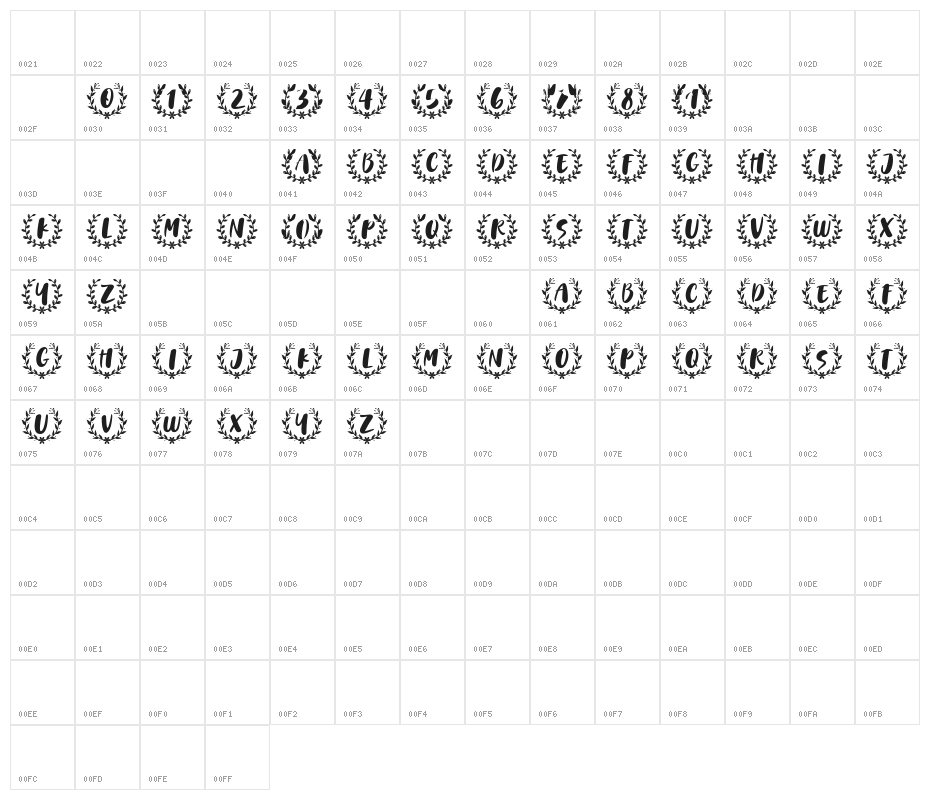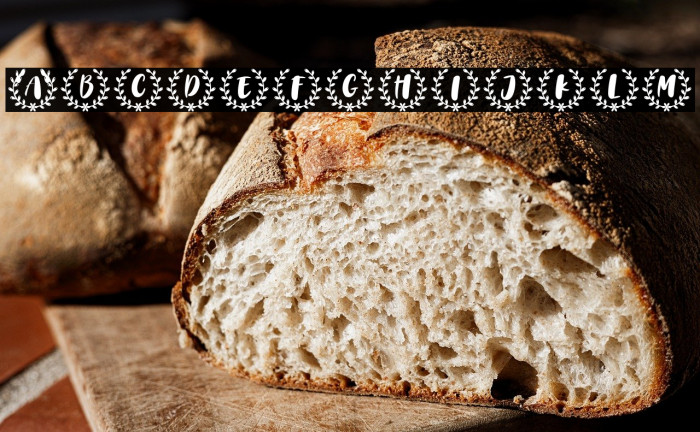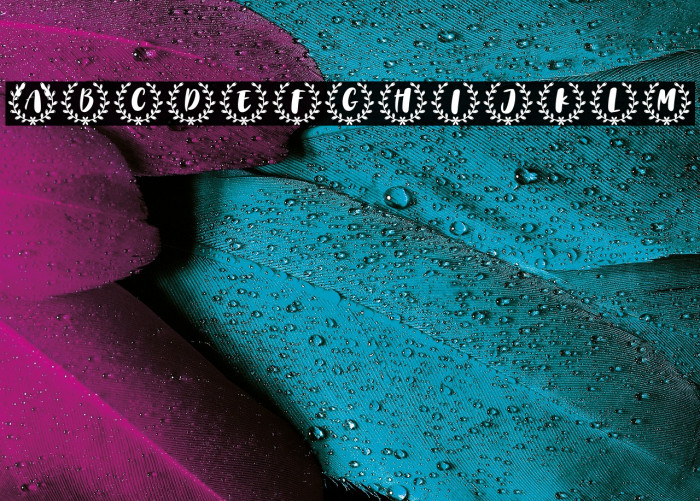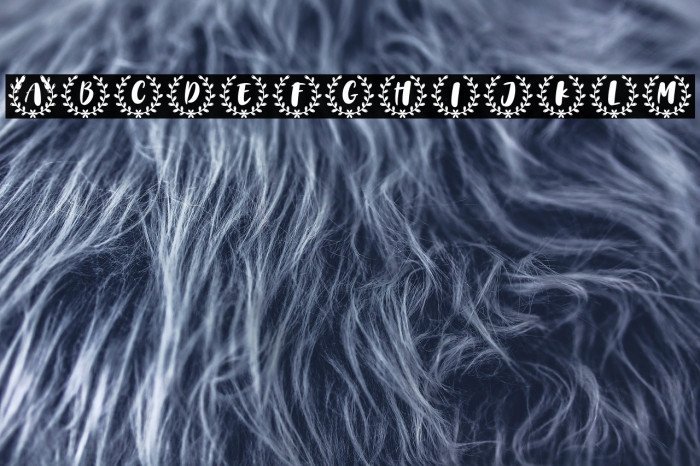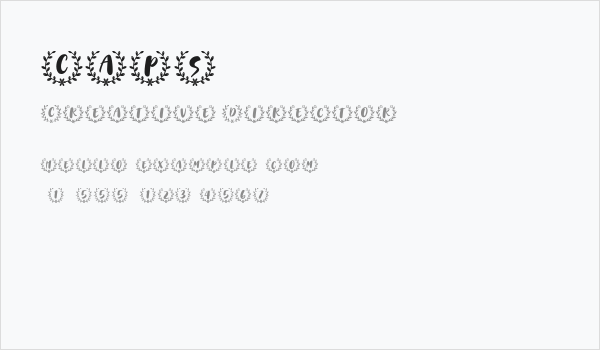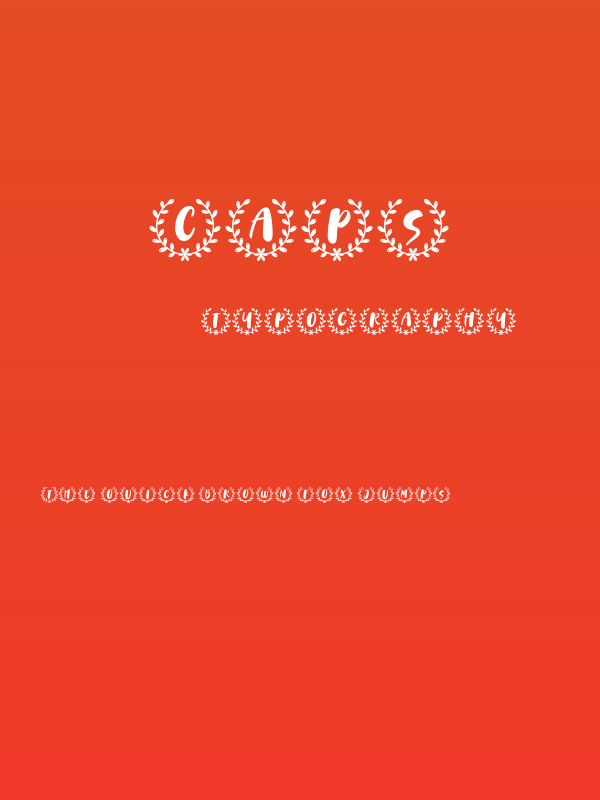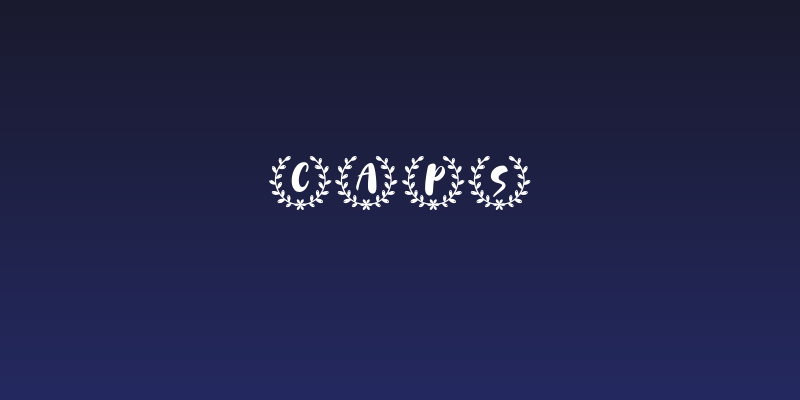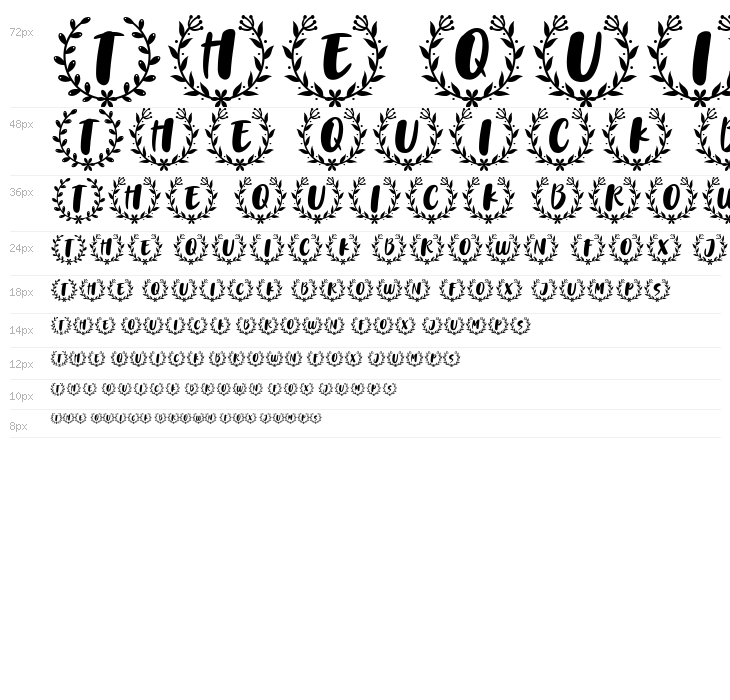
CAPS Font
CAPS Description
This decorative font features each character encased within a circular wreath of leaves, creating a unique and elegant appearance. The letters are bold and slightly italicized, with a modern flair that combines both natural and artistic elements. The font is highly stylized, making it ideal for projects that require a touch of sophistication and creativity. The wreath design adds an organic feel, perfect for nature-themed projects or elegant invitations. The characters are evenly spaced, ensuring readability while maintaining the decorative aspect. This font is suitable for use in various creative applications, from branding to event invitations.
| Use Case | Logos, Headlines, Invitations |
| Proposed Projects | Ideal for wedding invitations, nature-themed branding, event posters, and decorative signage. |